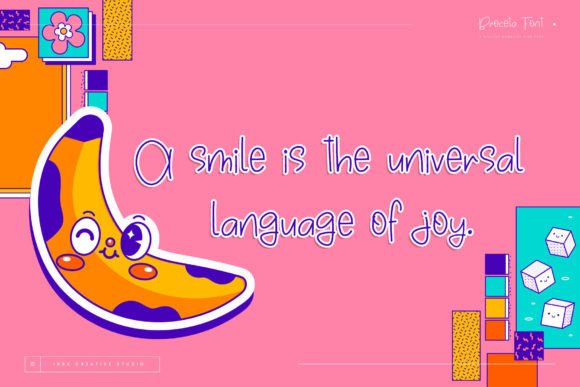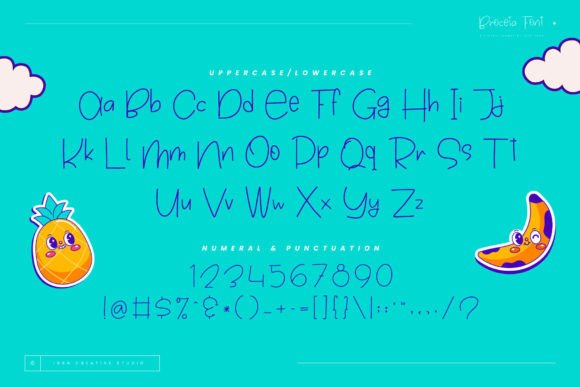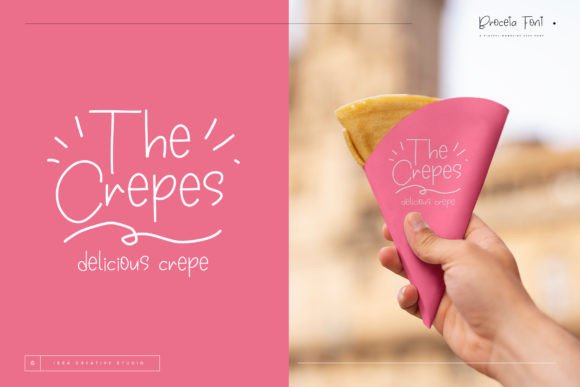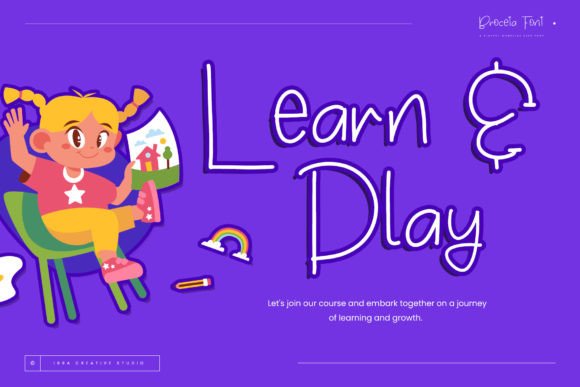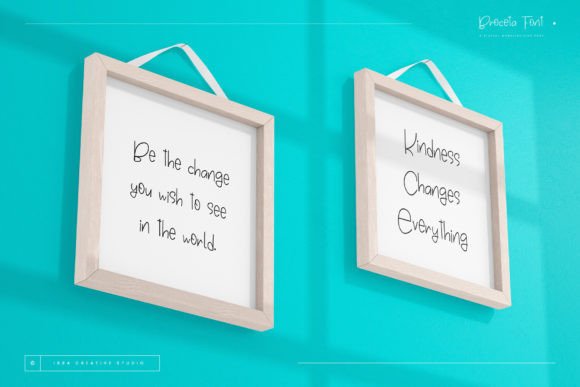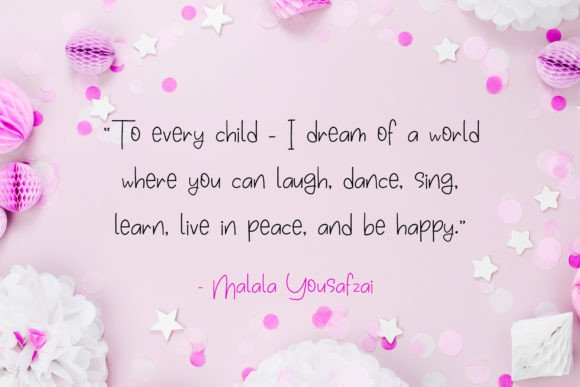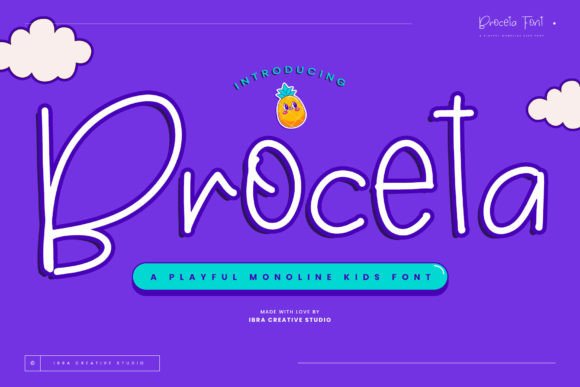
Broceta Font: A Whimsical Monoline Marvel for Kids’ Designs
In the realm of typography, few fonts capture the essence of youthful creativity as effortlessly as Broceta. This playful monoline kids font is a delightful addition to any designer’s arsenal, offering a unique blend of simplicity, innocence, and playfulness that’s sure to captivate young audiences. In this article, we’ll dive into the charming world of Broceta, exploring its features, benefits, and uses, and uncover why it’s the perfect choice for projects targeting kids and families.
The Allure of Monoline Design
Broceta’s monoline design is a masterclass in typographic elegance. Characterized by seamless, smooth strokes, this font exudes a sense of simplicity and innocence that’s hard to resist. The monoline approach ensures a consistent visual flow, making it easy to read and understand, even for young readers. This design choice also lends Broceta a sense of lightheartedness, perfect for projects that require a playful touch.
Playful Characters and Unique Flair
One of the standout features of Broceta is its delightful playfulness. Each character boasts a unique flair, as if they’re dancing across the page. This whimsical charm is sure to evoke the carefree spirit of childhood, making it an excellent choice for designs aimed at kids. The font’s characters are meticulously crafted to convey a sense of youthful energy, ensuring that your designs are always engaging and fun.
Readability and Versatility
Broceta’s monoline design not only enhances its visual appeal but also ensures excellent readability. The smooth, consistent strokes make it easy to read, even at smaller font sizes. This versatility is a significant advantage for designers, who can use Broceta across a range of projects, from children’s books and educational materials to posters, packaging, and digital media.
Perfect for Kids’ Designs and Beyond
Broceta’s unique charm makes it an excellent choice for designs targeting kids and families. However, its versatility ensures that it can be used in a variety of contexts, including:
• Children’s books and educational materials
• Posters, flyers, and brochures for kids’ events
• Packaging for kids’ products, such as toys and games
• Digital media, including websites, apps, and social media graphics
• Crafting and DIY projects, such as stickers, stencils, and coloring pages
Tips for Using Broceta in Your Designs
To get the most out of Broceta, consider the following tips:
• Pair Broceta with complementary fonts to create visual interest and hierarchy.
• Experiment with different colors and textures to enhance the font’s playful charm.
• Use Broceta consistently across your design to create a cohesive look and feel.
• Don’t be afraid to add embellishments or graphics to enhance the design and make it more engaging.
Broceta is a delightful monoline font that’s sure to capture the hearts of designers and kids alike. Its unique blend of simplicity, playfulness, and readability makes it an excellent choice for projects targeting young audiences. Whether you’re designing children’s books, educational materials, or kids’ products, Broceta is the perfect font to bring a touch of whimsy and creativity to your work. So why not give Broceta a try and discover the magic of this playful monoline marvel for yourself?